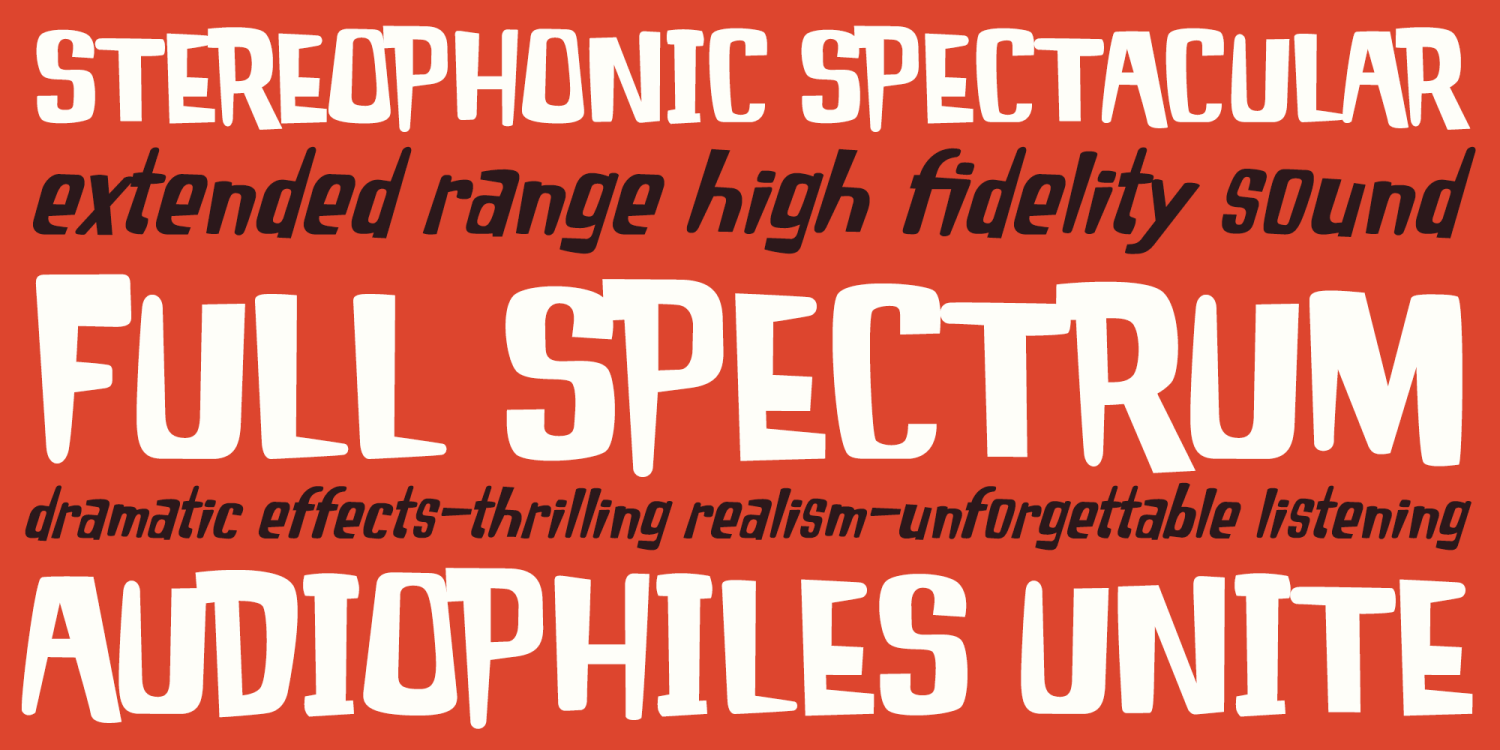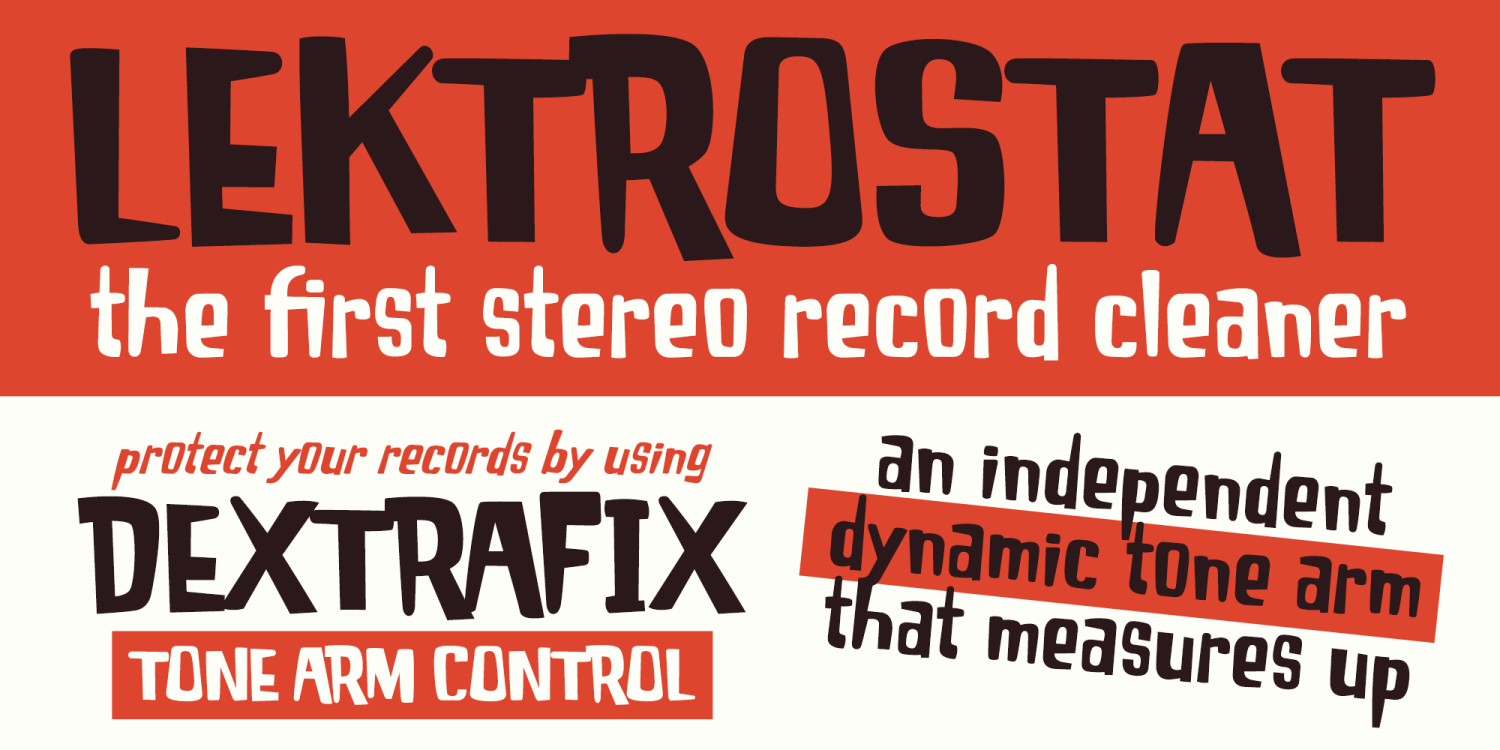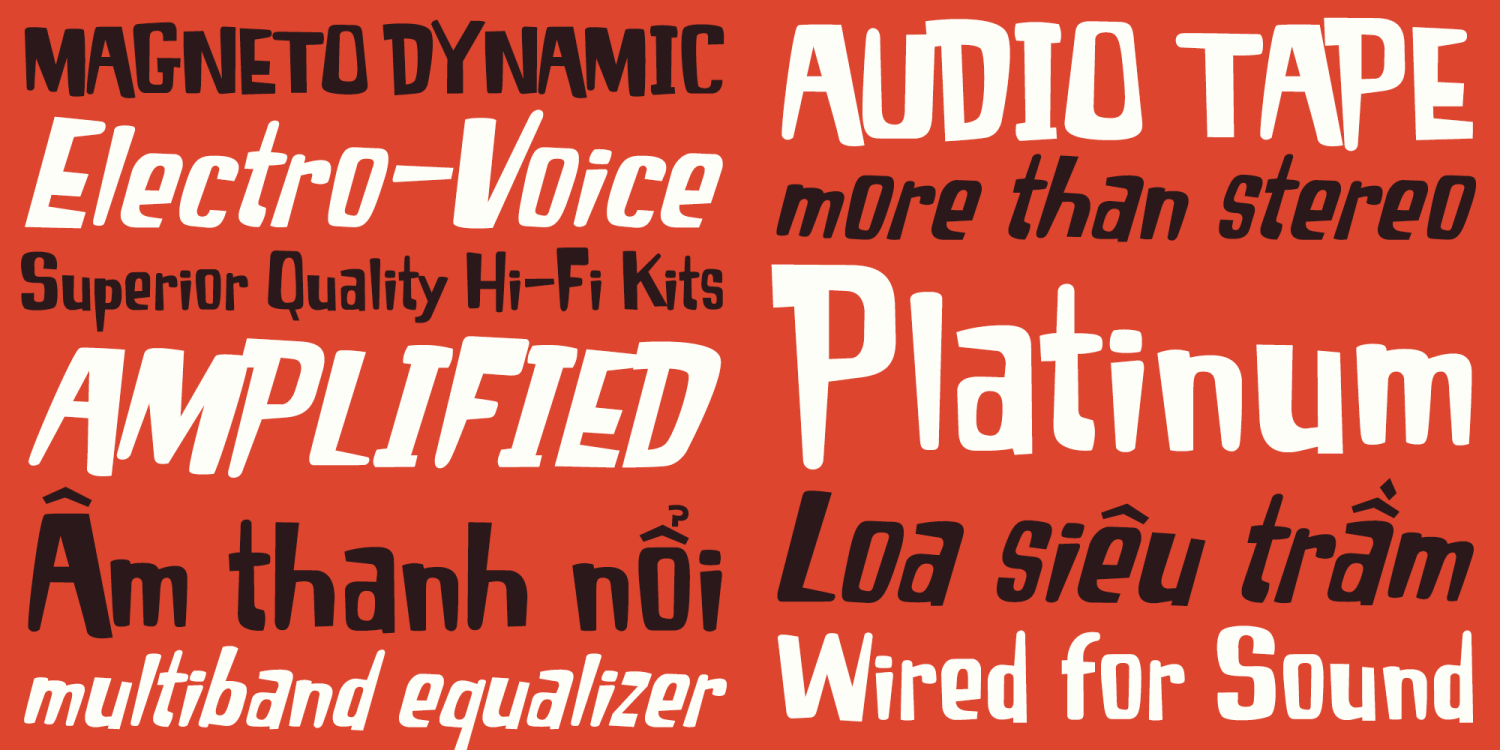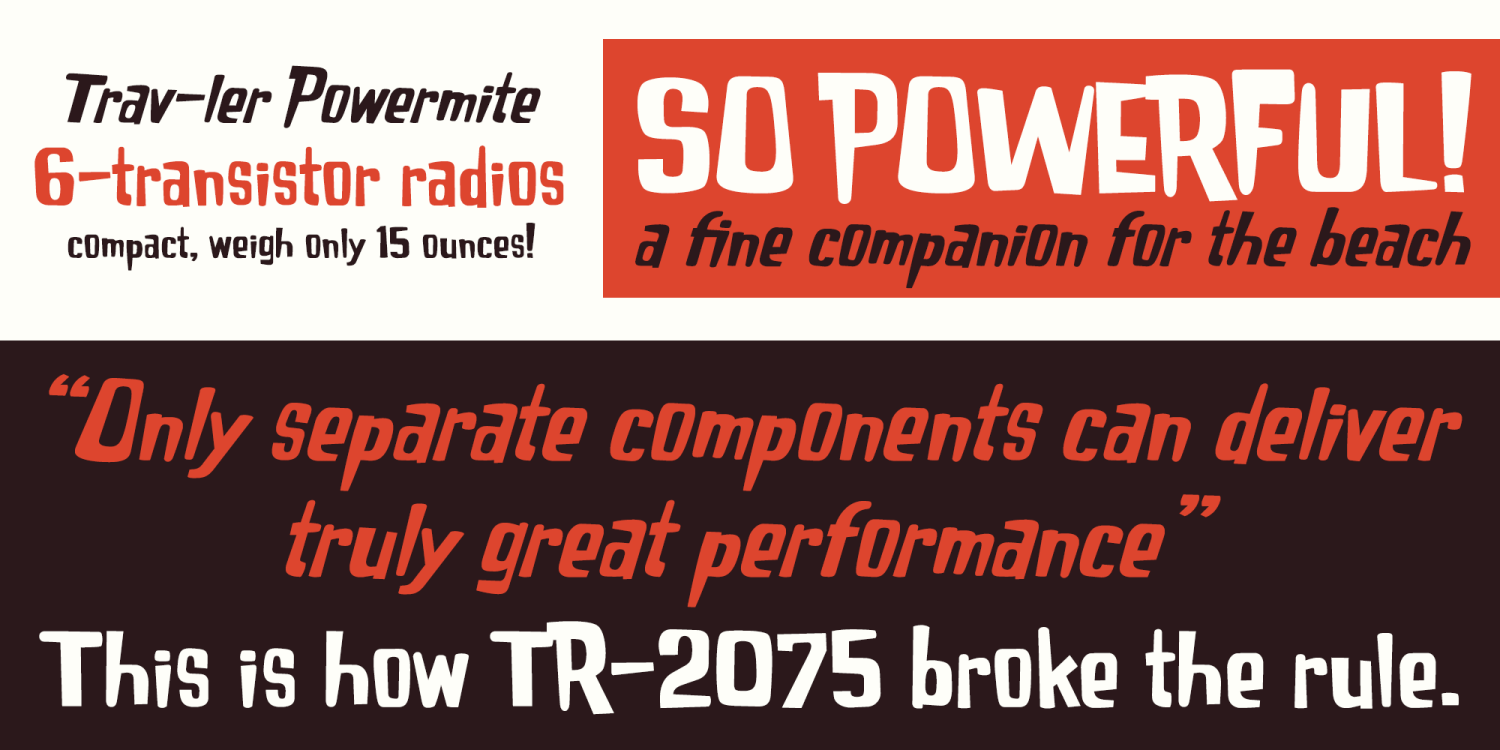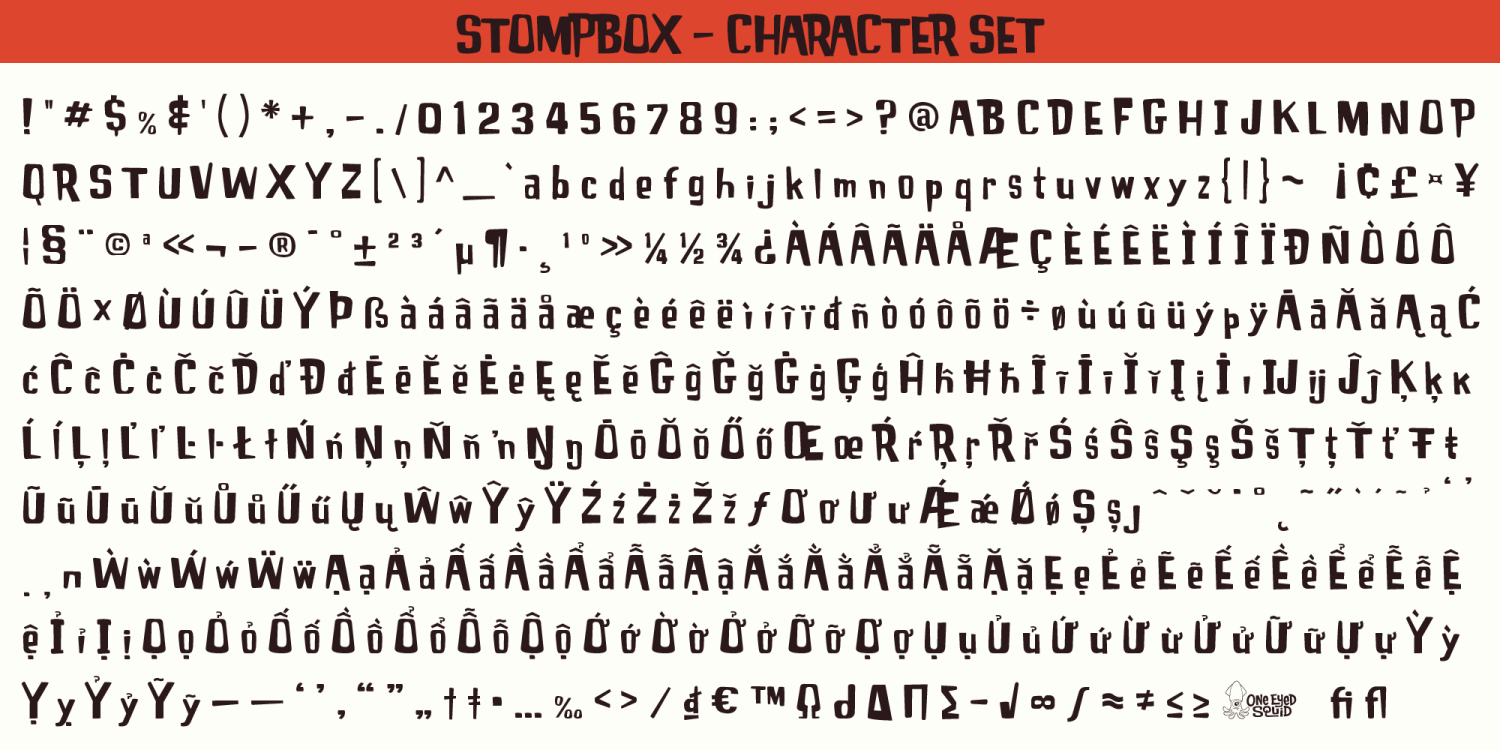
Stompbox
Font Family by One Eyed Squid
Stompbox is a loud, high-voltage display font built to bring electric energy, bold attitude, and center-stage impact to your designs. Inspired by the power and presence of amplified sound, its strong letterforms deliver a charged, overdriven personality that feels perfect for music-driven and attention-grabbing creative work. Available in Regular and Italic styles, Stompbox is ideal for posters, album art, branding, packaging, logos, social media graphics, event materials, and other projects that call for a powerful, expressive typographic voice. Includes extended Latin language support, including Vietnamese.